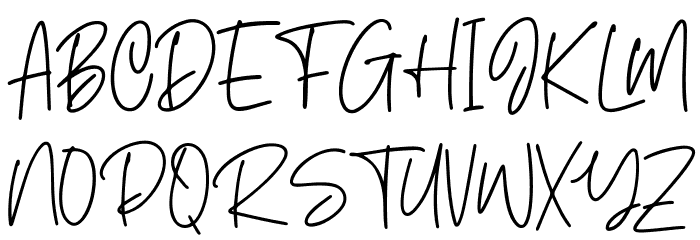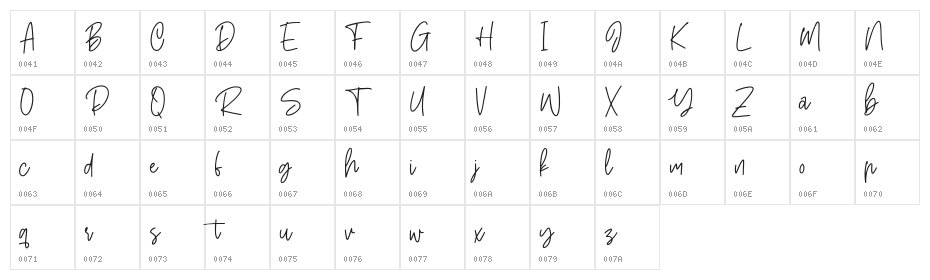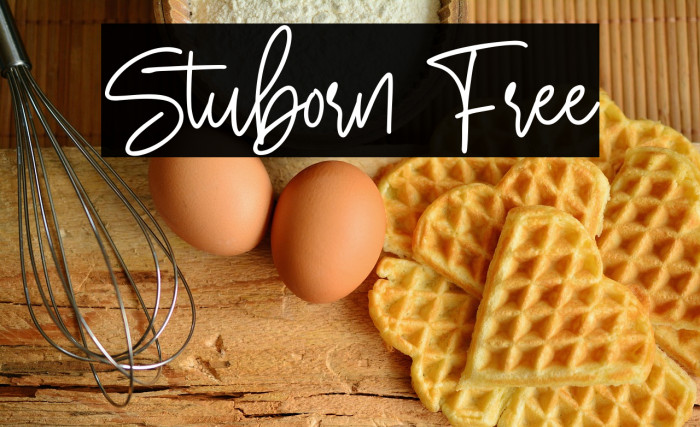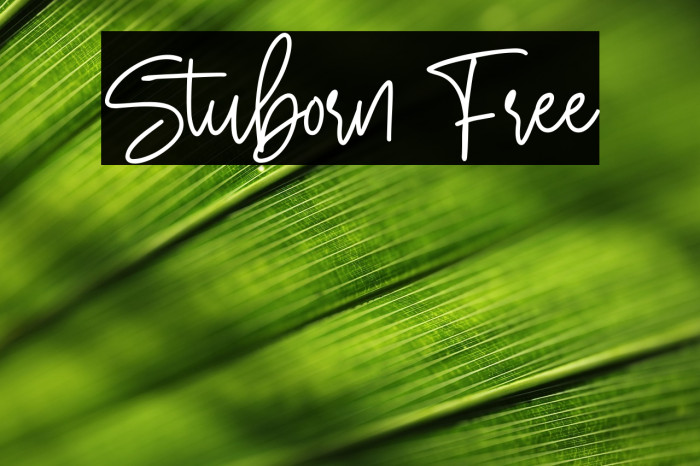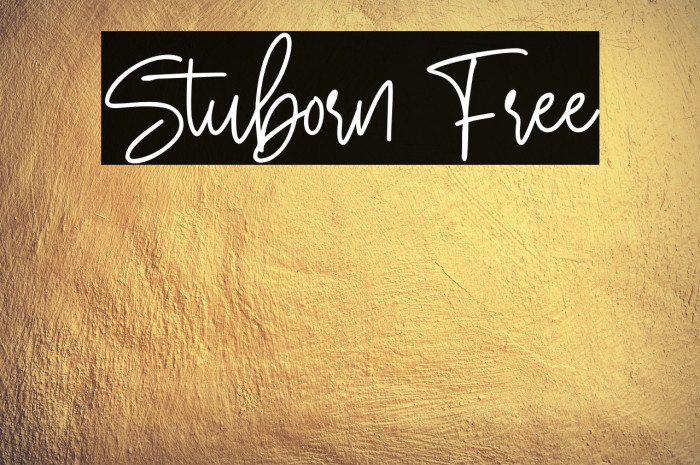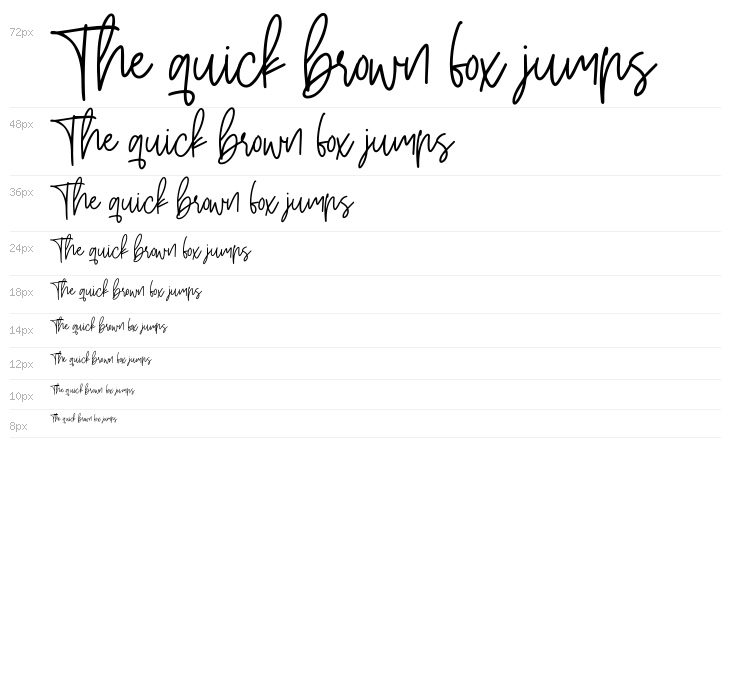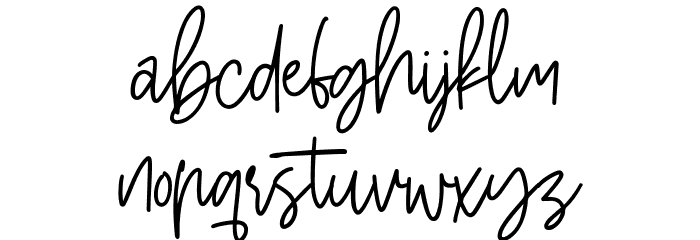
Stuborn Free Font
Stuborn Free Description
This font features a lively and expressive handwritten style, characterized by its fluid and dynamic strokes. The letters are crafted with a natural flow, giving the impression of being written with a quick, confident hand. The uppercase and lowercase letters maintain a consistent style, with elongated loops and curves that add a sense of elegance and movement. The font's playful nature is enhanced by its slightly irregular baseline, which adds to its charm and authenticity. It's well-suited for projects that require a personal touch, such as invitations, greeting cards, or branding materials that aim to convey warmth and approachability.
| Proposed Projects | Ideal for invitations, greeting cards, personal branding, and creative projects requiring a personal touch. |